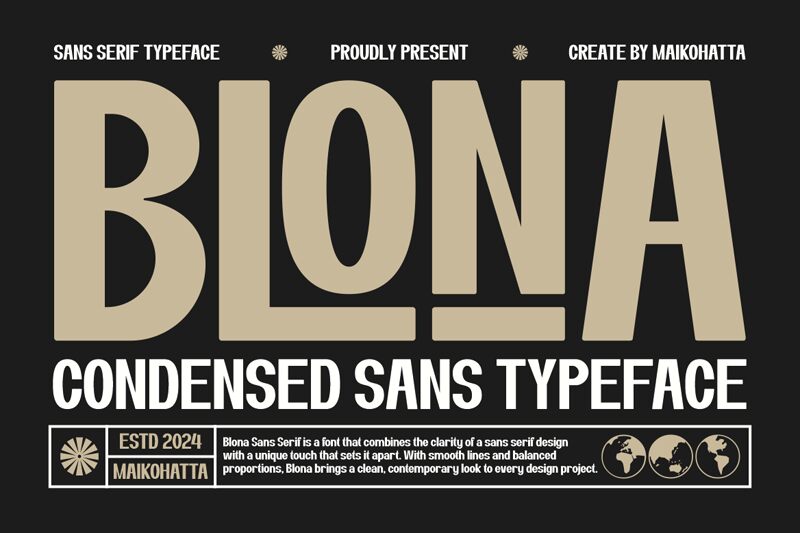
BLONA
Blona font by Gilang Ternadho is a free bold condensed sans serif display font that solves a classic designer headache: big impact in tight spaces. Its blocky, slab-like strokes, tall verticals, and compact counters create a dense, punchy rhythm that reads instantly even at a glance. Clean cuts and minimal curves deliver a crisp, industrial tone without feeling cold, so headlines hit hard without shouting.
Using Blona, you can stack powerful titles on posters, event flyers, packaging, sports branding, thumbnails, and storefront signage. This free font shines when you need maximum weight with controlled width and steady spacing. Try pairing Blona with a light grotesk for body copy, or add a touch of letterspacing at smaller sizes to keep the texture breathable.